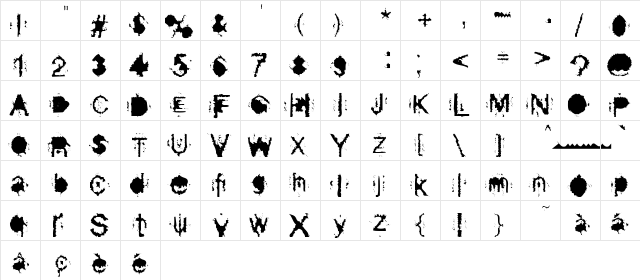
ParasiteHeaven Regular
Design Context for ParasiteHeaven Typeface
ParasiteHeaven is a composed and adaptable typeface that performs quietly and consistently across a wide range of design contexts.